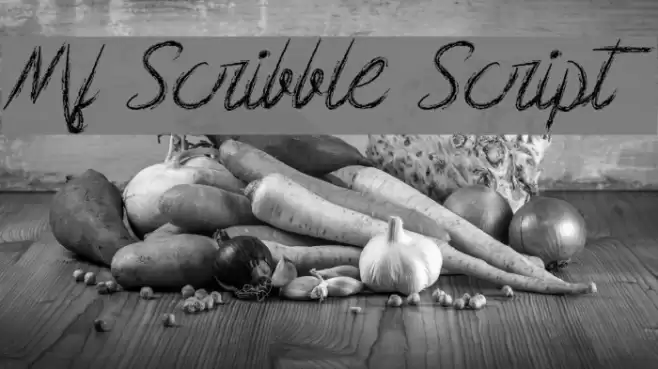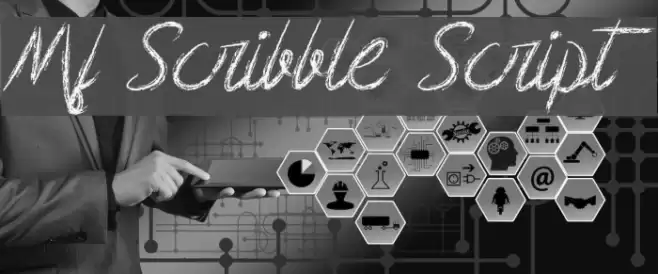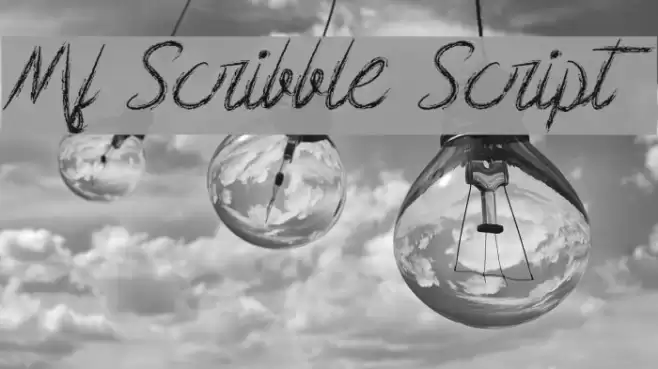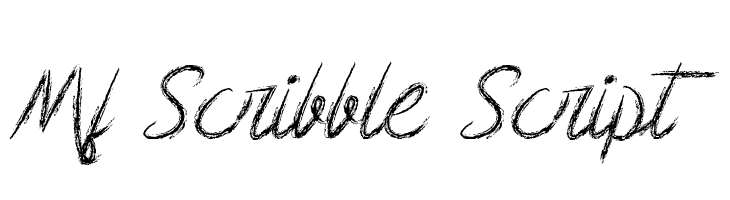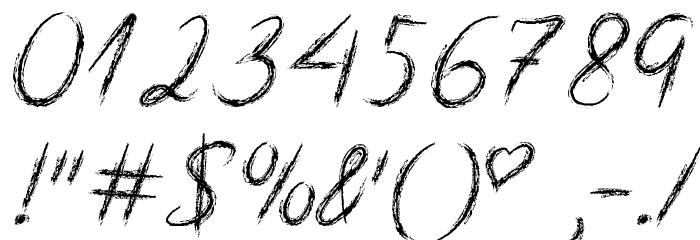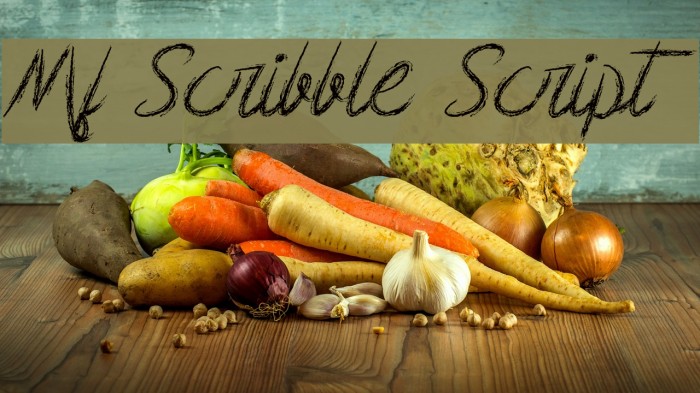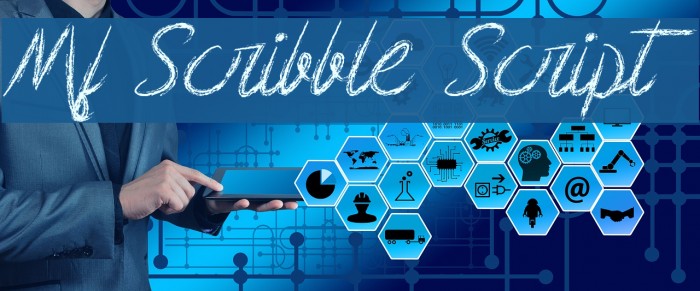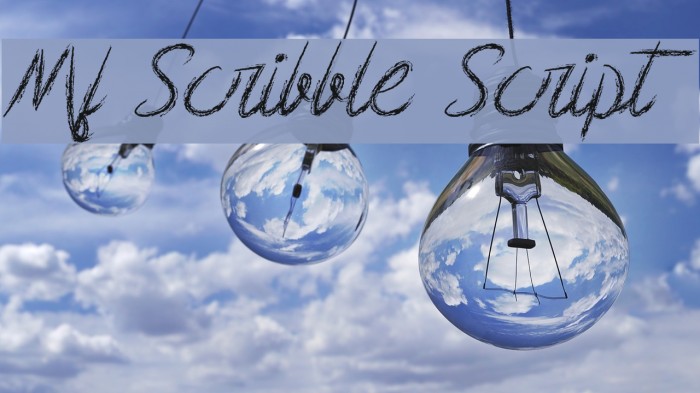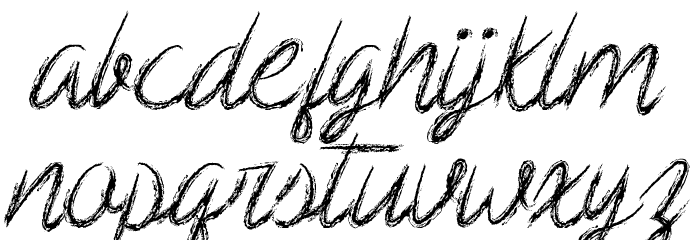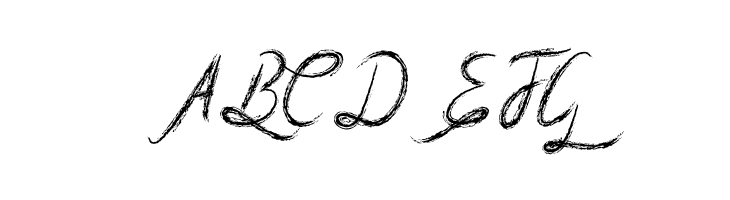
Mf Scribble Script Font
Mf Scribble Script Description
This font exudes a dynamic and energetic style, reminiscent of hurried handwriting with a playful twist. The strokes are uneven and textured, giving it a scribbled appearance that adds a sense of spontaneity and creativity. Each character flows into the next with a natural, fluid motion, yet maintains a distinct individuality. The uppercase letters are bold and expressive, while the lowercase letters maintain a consistent rhythm. Numbers and special characters follow the same lively style, making the font versatile for various creative applications.
A dynamic, scribbled script font with a playful and energetic style from Handwritten fonts.
- Proposed Projects: Ideal for creative projects such as greeting cards, artistic posters, children's book covers, and playful branding materials.
- Use Case: Logos, Headlines, Artistic projects